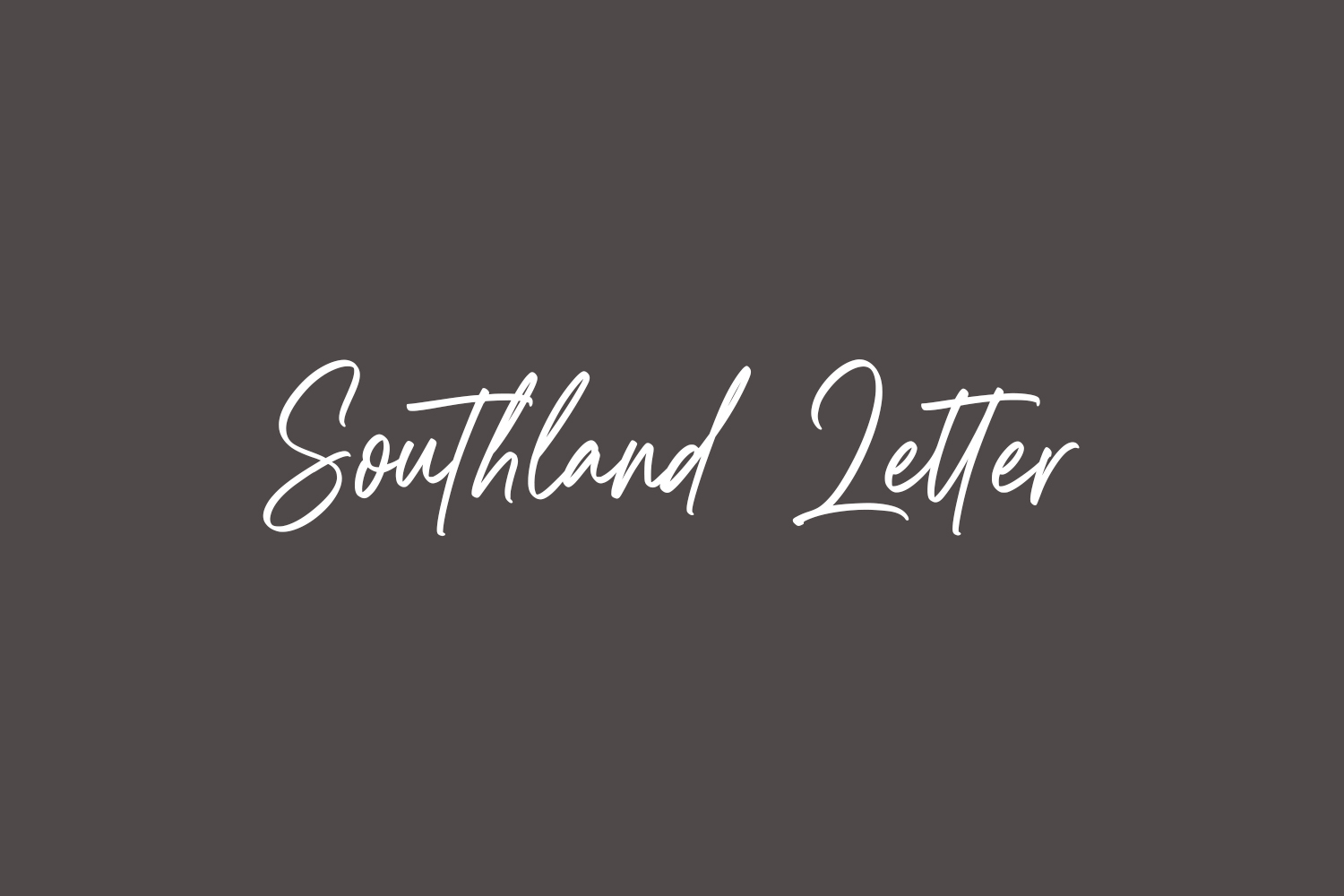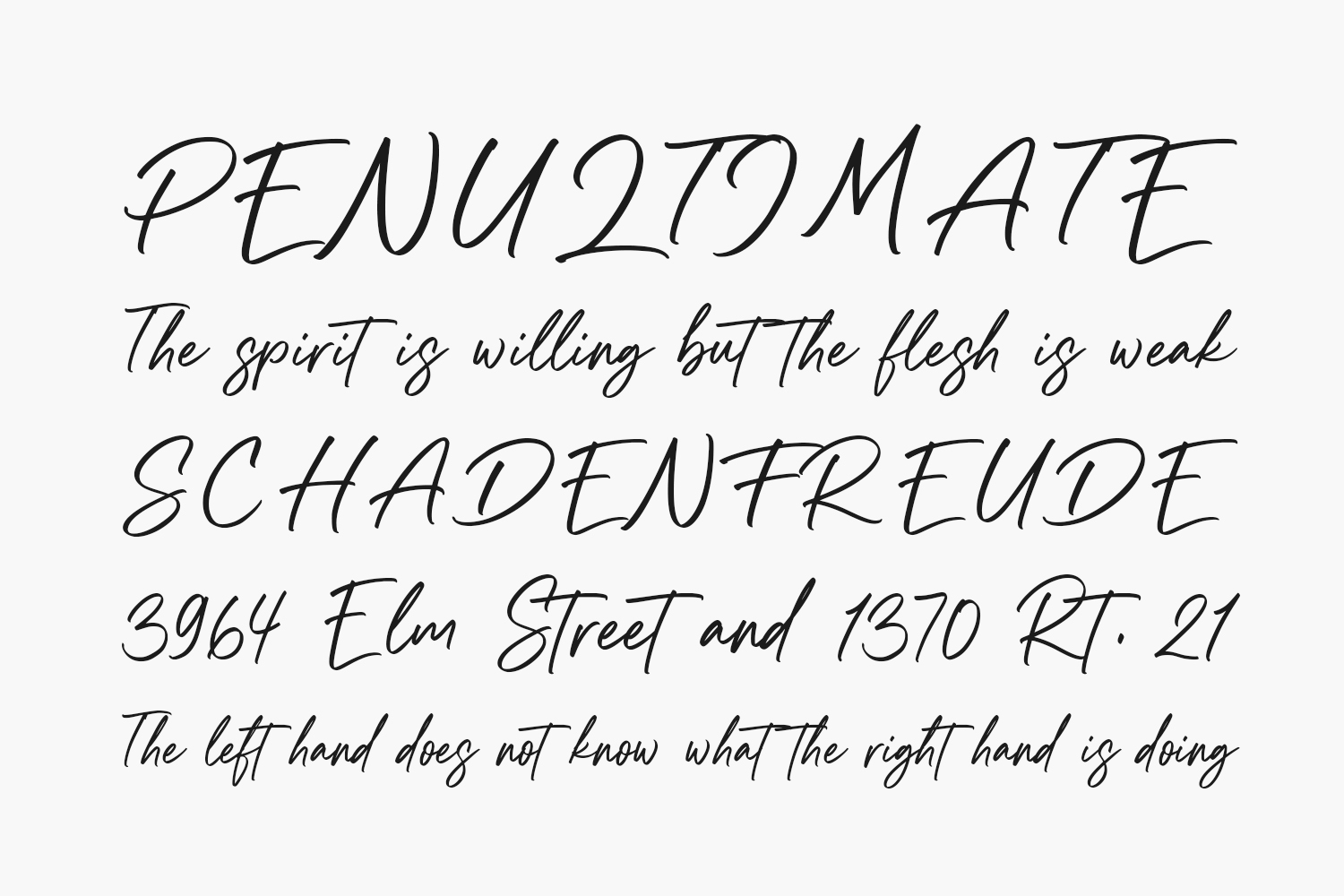
Southland Letter Free Font is a lovely and timeless handwritten font. It is the best choice for creating eye catching logos, branding, and quotes. Every letter has a unique and beautiful touch, which will make your design come alive. Southland Letter Free Font was designed by Hanzel Space and is free for personal use only. Please purchase the full version for commercial use.